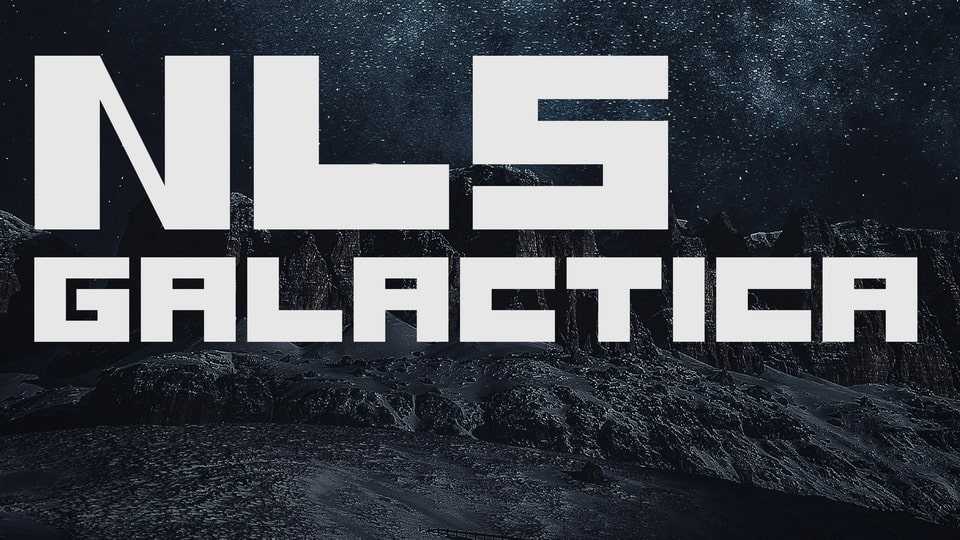
Download NLS Galactica font, a bold, blocky display typeface designed on a square grid. It features strong, geometric letterforms with a uniform, structured appearance that commands attention.
Designer: Lamare Souley